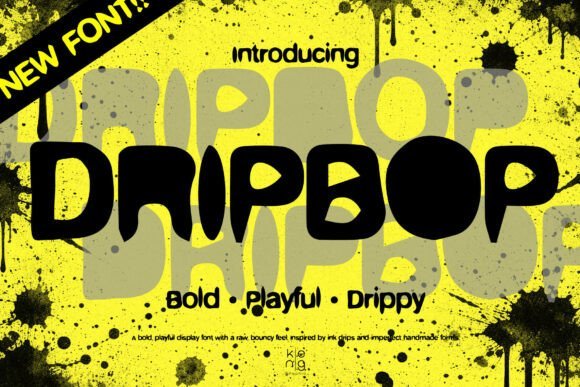
Discover the Unbridled Energy of Dripbop Font
Have you ever stared at a blank canvas, desperate for the perfect font to bring your design to life? That’s exactly where I was when I stumbled upon the Dripbop Font – a game-changing display font that’s about to revolutionize your creative process.
This peppy font is a masterclass in capturing the viewer’s attention with its bold, drippy aesthetic. Its unique, globule-inspired structures radiate a captivating dynamism, making it an unforgettable visual experience. Whether you’re a seasoned designer or just starting out, the Dripbop Font is an invaluable addition to your toolkit, guaranteed to add a splash of vivacity to any design project.
Dripbop Font Key Features
- Unique Characteristics: The font features a unique, hand-drawn style with subtle irregularities, giving it a personal and artistic feel.
- Legibility: Despite its unique style, Dripbop Font is highly legible, making it suitable for body text and headings in a wide range of applications.
Dripbop Font Review
I recently had the chance to play around with the Dripbop font, and here’s my honest take on it.
- ✨ Unique design: Dripbop has a distinct, eye-catching aesthetic that sets it apart from more generic fonts.
- ✨ Versatility: The font comes in multiple styles and weights, making it suitable for a wide range of applications.
- ✨ Customizability: Dripbop’s design elements can be easily customized to fit specific branding needs.
- ⚠️ Readability: In certain contexts, Dripbop’s design can make text harder to read, particularly at smaller font sizes.
- ⚠️ Limited language support: Dripbop’s font files may not include support for non-Latin scripts, which could be a limitation for international projects.
Overall, I think Dripbop is a solid choice for projects where a unique, attention-grabbing font is required. While it may not be the best option for every situation, it’s definitely worth considering for branding, marketing materials, or other applications where style takes precedence over strict readability.
Getting the Most Out of Dripbop Font
For best results, use Dripbop Font in conjunction with bold, playful, and creative design elements.
Experiment with different font sizes, colors, and alignments to add visual interest to your design.
Common Use Cases for Dripbop Font
Dripbop Font is ideal for:
1. Social media graphics and posts.
2. Branding and logo design.
3. Marketing materials and brochures.
4. Digital invitations and party decorations.
Alternatives to Dripbop Font for Designers
Great Vibes Font is a modern script font that is perfect for creating a sense of elegance and sophistication. It is ideal for use in wedding invitations, branding, and other high-end designs. Compared to Dripbop Font, Great Vibes Font has a more refined and polished look, making it suitable for formal events and luxury brands.
Pacifico Font is a beautiful, handwritten font that is great for creating a relaxed and casual atmosphere. It is ideal for use in beach-themed designs, food labels, and other laid-back projects. Compared to Dripbop Font, Pacifico Font has a more laid-back and carefree vibe, making it perfect for summer-themed designs and casual branding.
Carolyna Pro Font is a elegant script font that is perfect for creating a sense of luxury and sophistication. It is ideal for use in high-end branding, wedding invitations, and other formal designs. Compared to Dripbop Font, Carolyna Pro Font has a more refined and sophisticated look, making it suitable for luxury brands and high-end events.